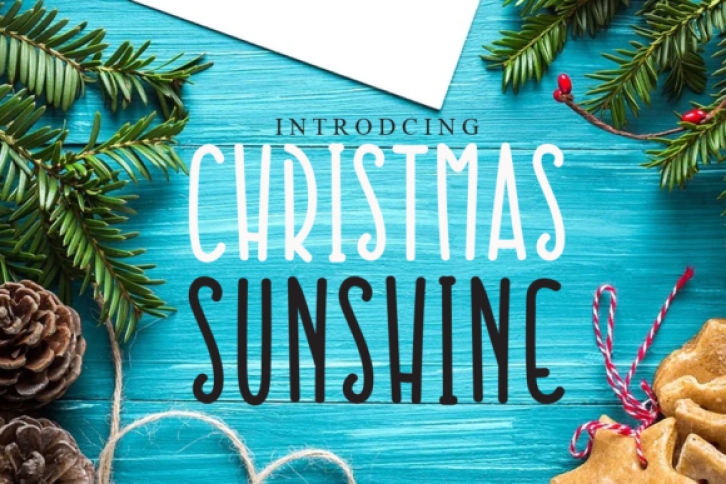
Christmas Sunshine is a cute and quirky handwritten font. It has a trendy look and it is ideal for writing joyful and fun holiday letters. Add this font to your favorite creative ideas and notice how it makes them come alive!